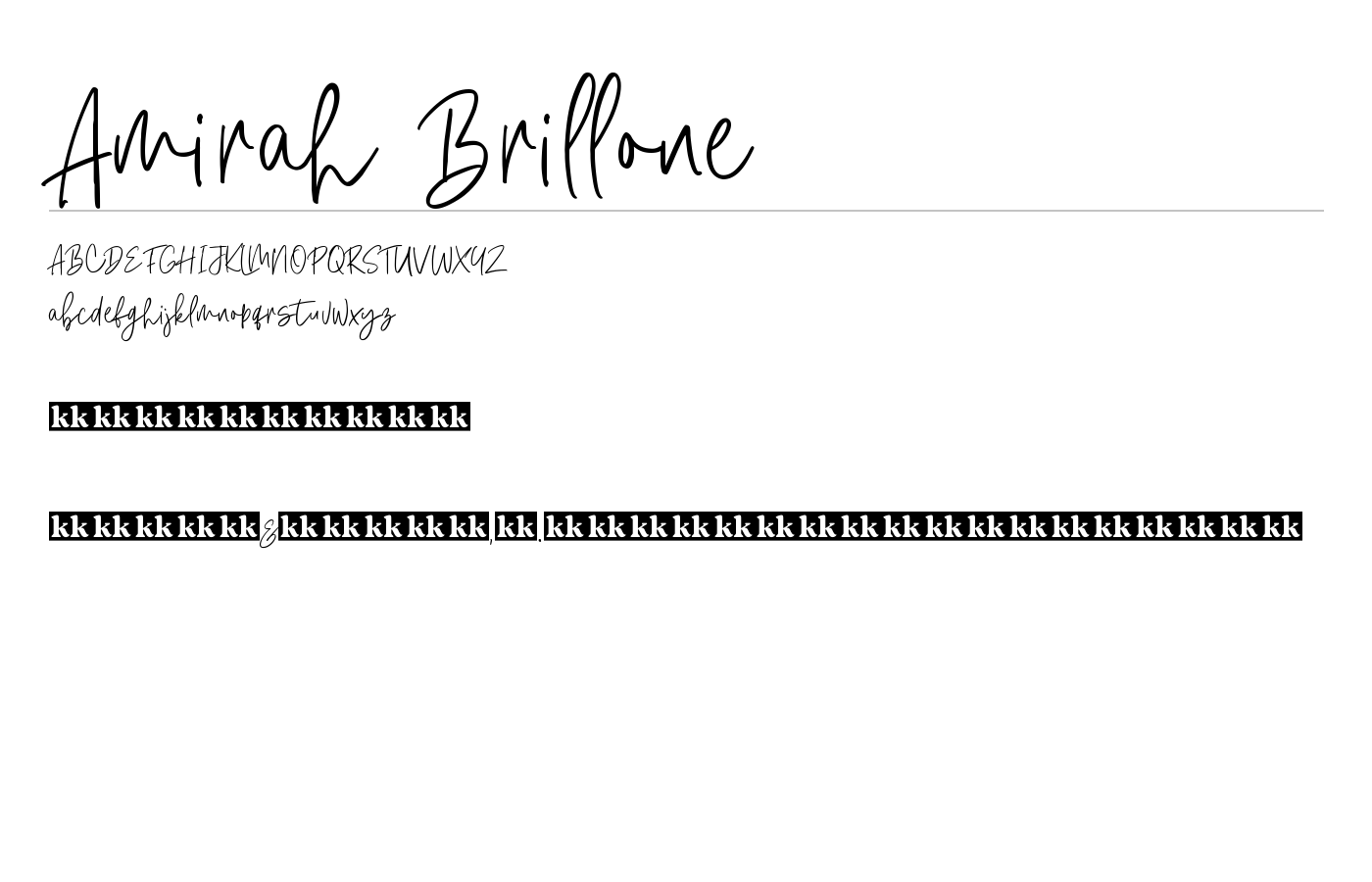
Amirah Brillone is a delicate, handwritten script font that features a light weight and tall, narrow letterforms. Its flowing strokes and elegant, casual style make it perfect for adding a personal, sophisticated touch to invitations, branding, and editorial designs. This font shines in contexts where a refined yet approachable feel is desired, such as fashion, beauty, and lifestyle projects.
Amirah Brillone Font
About Amirah Brillone Font